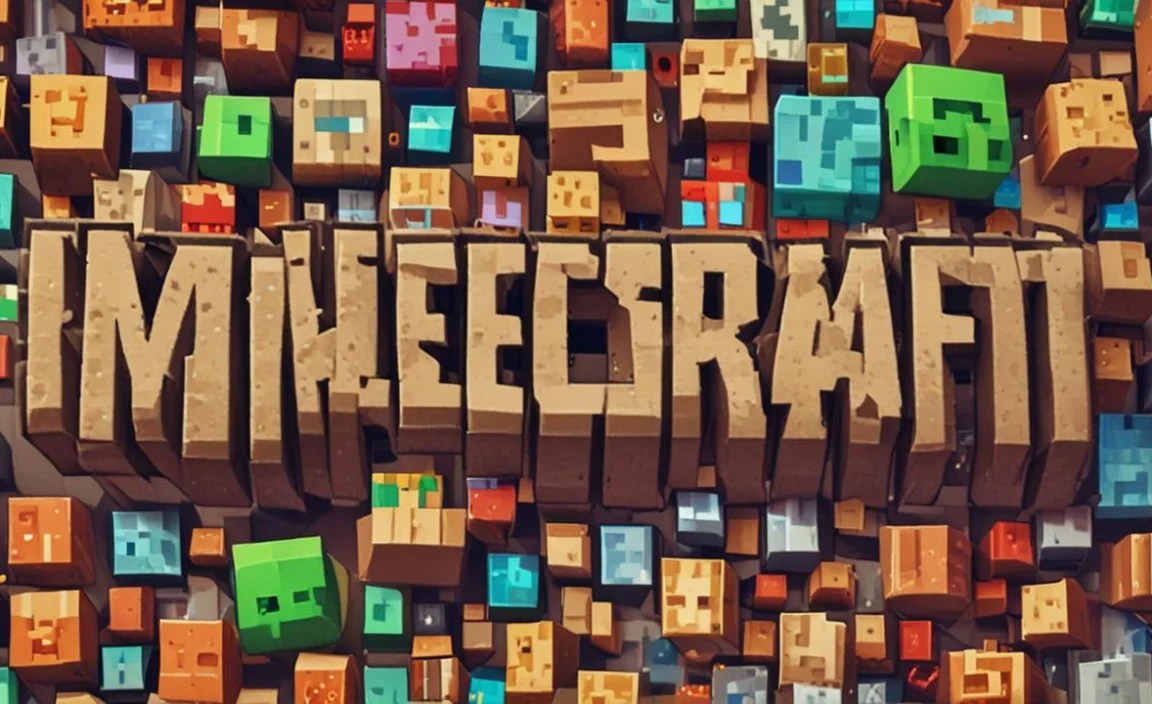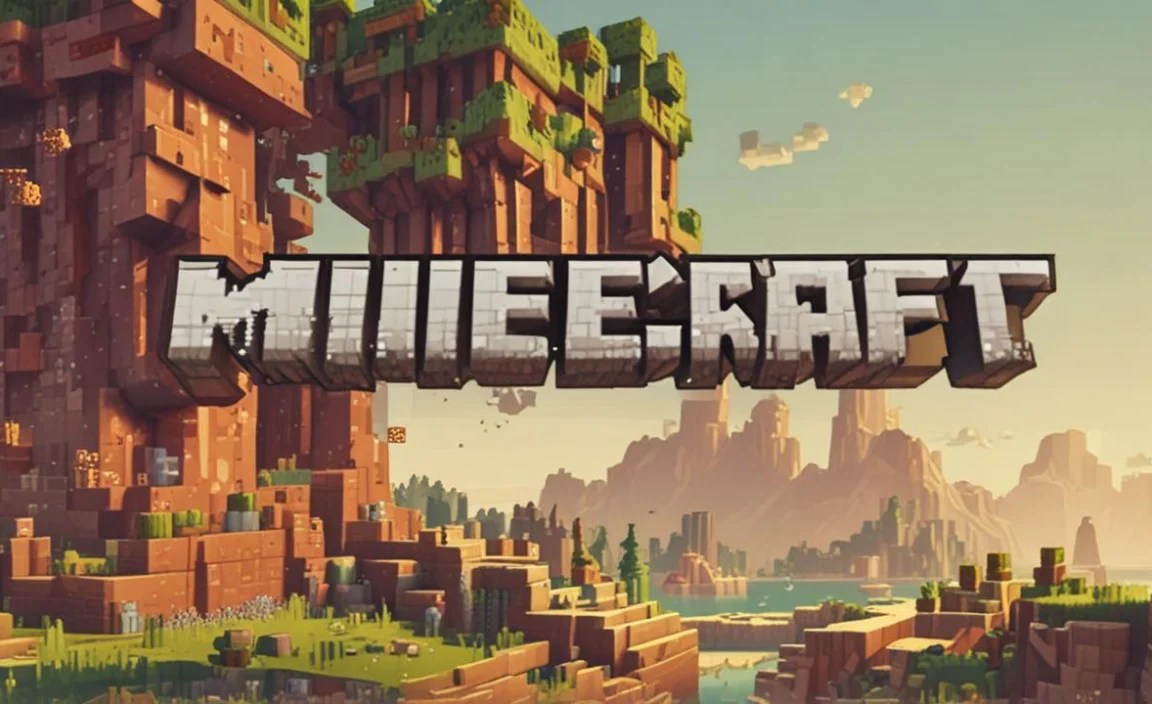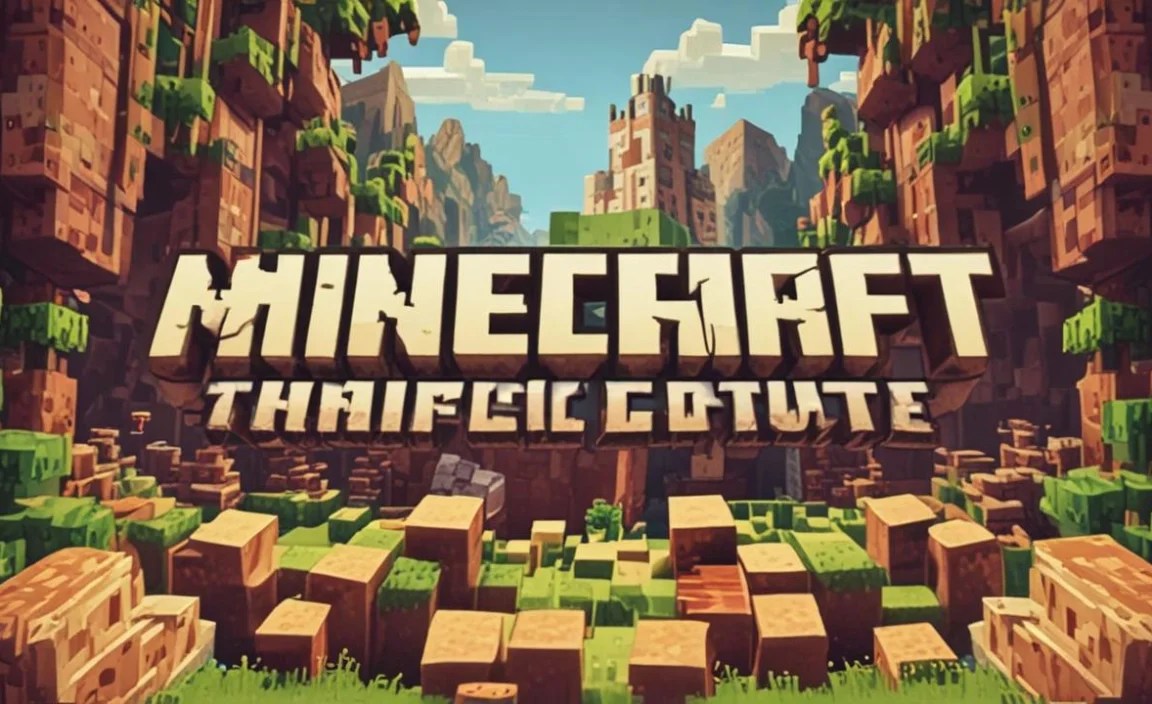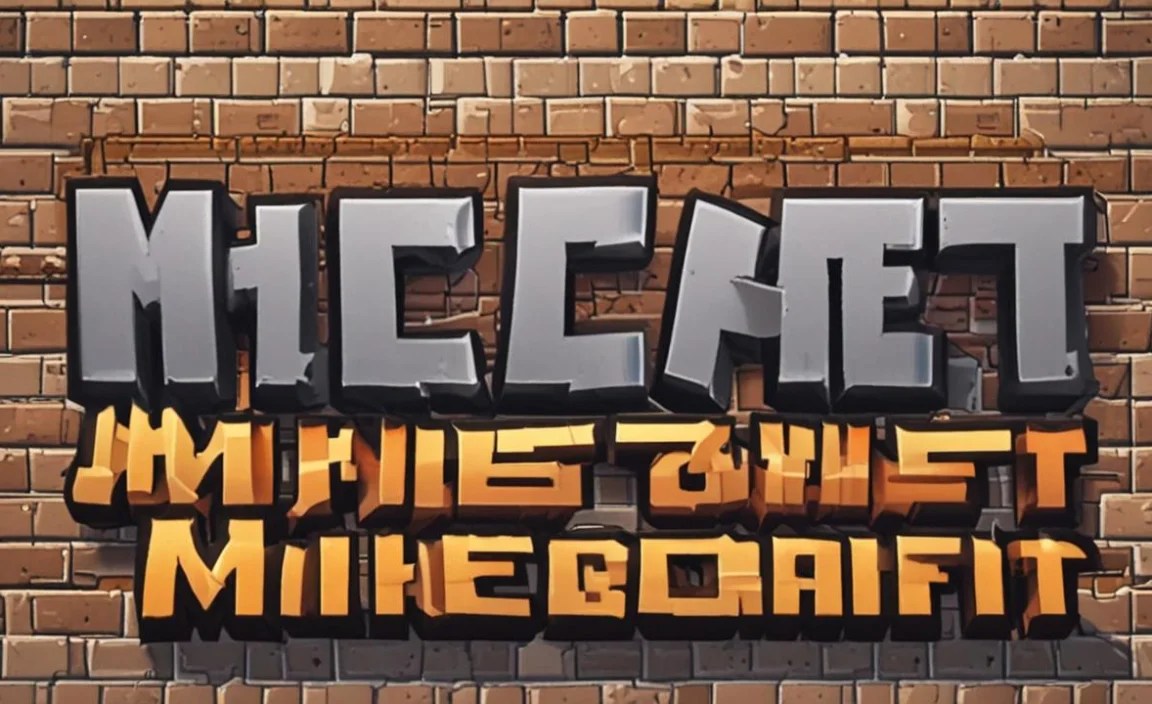
If you’ve ever played Minecraft, you know how distinctive its world is. Nothing compares to its pixelated visuals, nostalgic atmosphere, and ability to inspire players’ creativity.
But did you know that the iconic Minecraft font has become just as influential as the game? Whether creating game-related content, designing logos, or diving into custom typography, using a Minecraft font can bring that signature blocky, nostalgic style to your work.
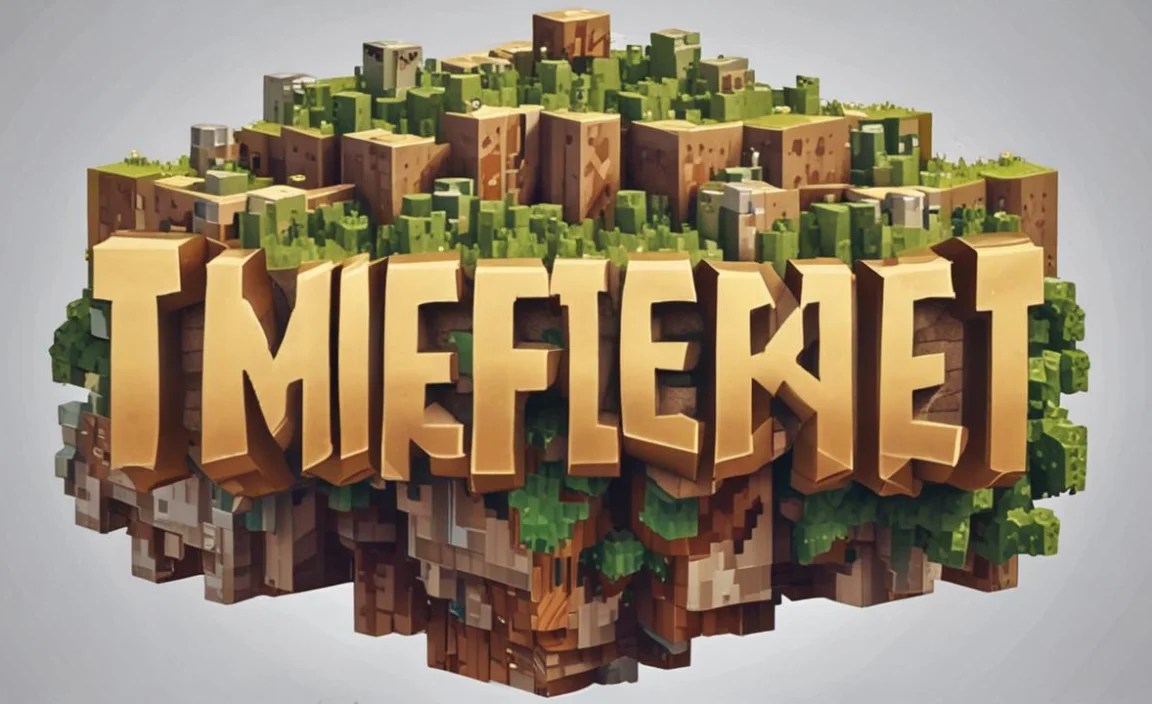
Why Choose A Minecraft Font?
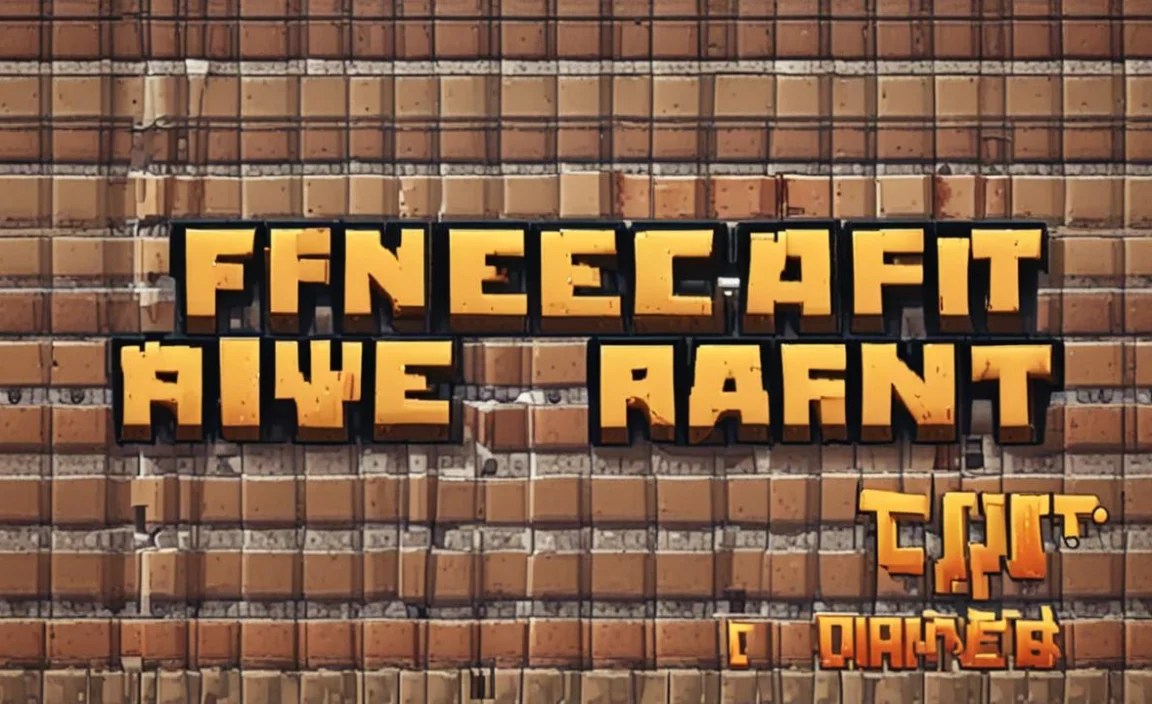
The magic of the Minecraft Font lies in its pixelated simplicity. If you aim to capture Minecraft’s world’s essence, this font is your go-to choice. Its clean, bold look is perfect for various design needs, whether crafting logos, creating game-related banners, or adding that extra touch to a YouTube thumbnail. The Minecraft Font adds personality and charm to any project, instantly giving it that retro, video-game feel.
Plus, these fonts aren’t just limited to branding or game content. Whether you’re working with custom fonts, script fonts, or even calligraphy fonts, the Minecraft Font family has a style for every purpose. You can find a font that fits seamlessly into your creative vision.
Popular Minecraft Font Family Names
Let’s take a look at some of the most popular Minecraft Fonts, each with its own distinct style:
- MineCrafter: Bold, blocky, and inspired by the official game logo. If you want your text to stand out, this one’s perfect for logos and titles.
- Minecraftia: A clean bitmap font that’s fantastic for UI text or in-game text. It’s simple but effective in making sure your content is easily readable.
- MineCrafter Alt: A variation of the MineCrafter font, this one comes with additional special characters, making it a great choice for creative text and personalization.
- Minecraft Evenings: This one has a retro vibe and is designed with pixel art in mind. This font will give you that old-school game feel if you’re going for a vintage, 8-bit look.
- Minecraft Ten: A modern take on the classic pixelated style. With smoother edges, Minecraft Ten is a great option for branding, posters, or any project that requires a clean yet creative touch.
- Minecraft Seven: A unique alternative to the standard fonts, Minecraft Seven offers a distinct look that can change the tone of your design while keeping that Minecraft essence.
Each font offers something different, but they all share that pixel-perfect charm Minecraft fans adore.
How To Use A Minecraft Font Generator
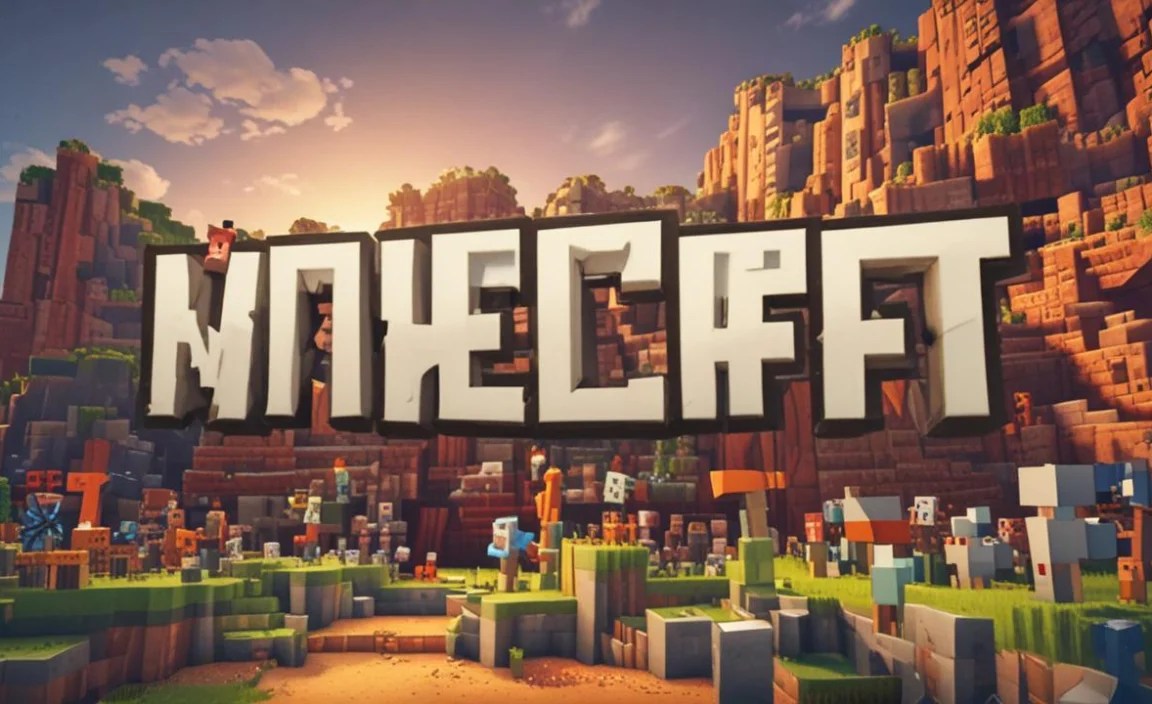
Ever wanted to create custom text that looks just like the one in the game? That’s where a Minecraft font generator comes in handy. These tools allow you to transform your text into a Minecraft-style masterpiece without needing any advanced design skills. You can use it for a variety of purposes:
- Fancy Font Designs for Banners and Thumbnails: Stand out in a crowded world of content creators by using these fonts for your YouTube videos, social media posts, or custom graphics.
- Craftron Gaming Logos: If you’re working on something for your gaming brand, a Minecraft Font generator can help you create logos that match the look and feel of Minecraft.
- Text for Bedrock and Java Edition Servers: Customize your server’s text to match the blocky theme that defines Minecraft, whether you’re running a Bedrock or Java Edition server.
- Adding Script and Calligraphy Fonts: You can even combine the Minecraft Font with fancy script or handwritten fonts for a more personalized or creative touch.
Minecraft Font generators make it easy to integrate that pixelated, blocky aesthetic into your designs, making them feel authentic and adding a fun flair.
Comparison of Minecraft Fonts
Let’s break down the different fonts from the Minecraft Font Family to help you choose the right one for your design:
| Font Name | Style | Best Use Case |
| MineCrafter | Blocky, Bold | Logos, Titles, Game Branding |
| Minecraftia | Bitmap, Clean | UI Text, Game Text, Interfaces |
Does The Minecraft Font Support Special Characters?
Yes! Some fonts, like MineCrafter Alt, include special characters and symbols, adding more creative flexibility.
What’s The Best Use For Minecraft Fonts In Design?
These fonts are ideal for player name tags, Craftron Gaming logos, and any game or Minecraft-related project.